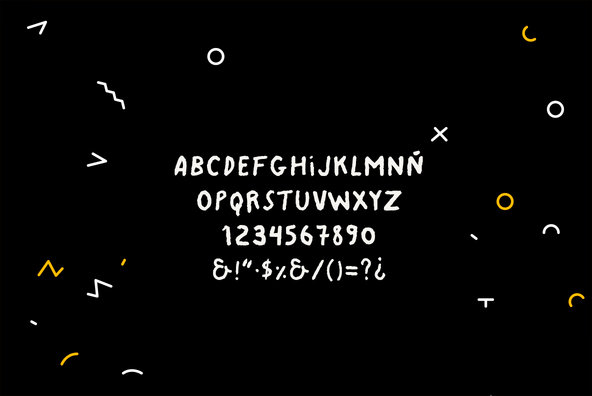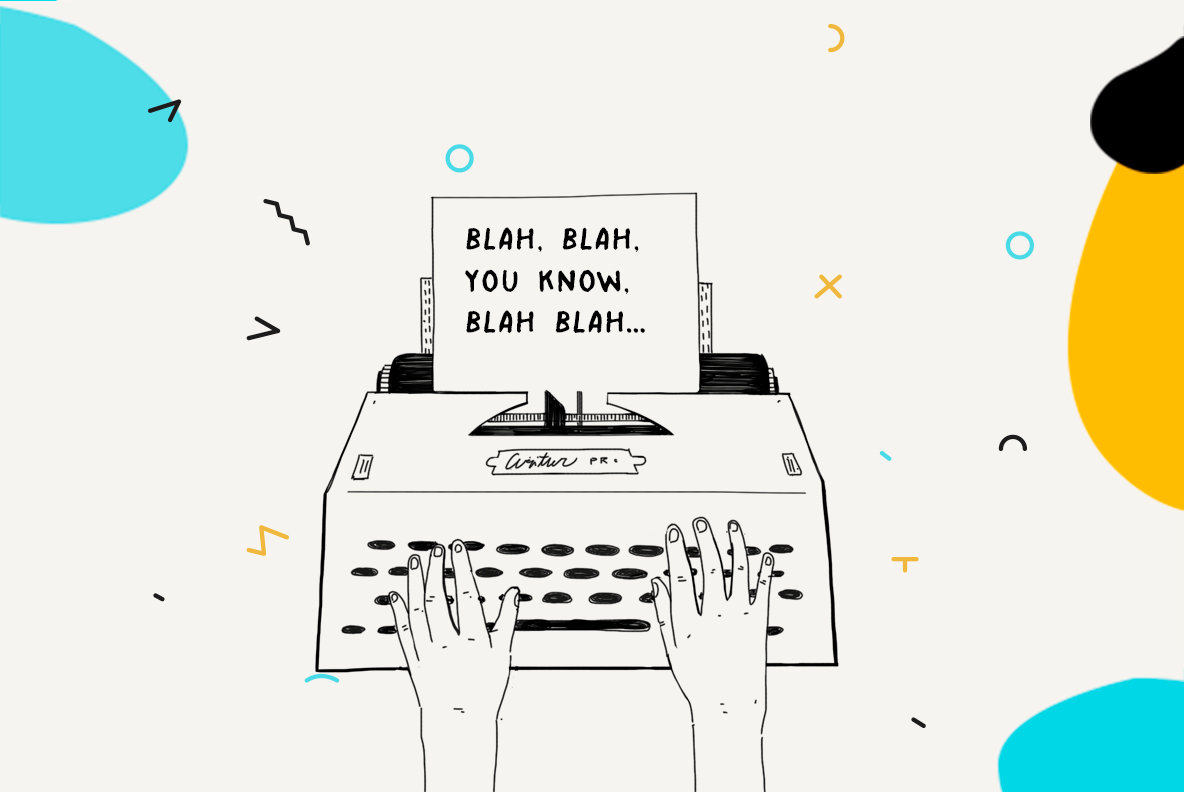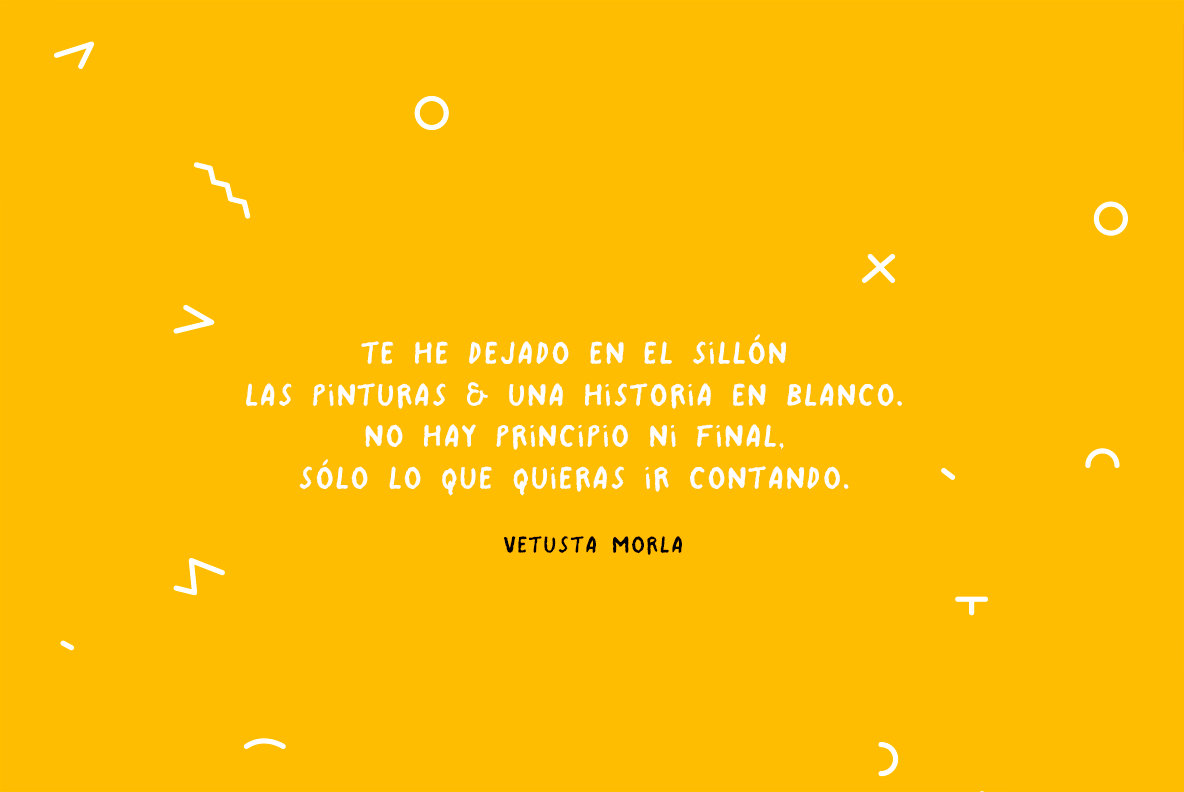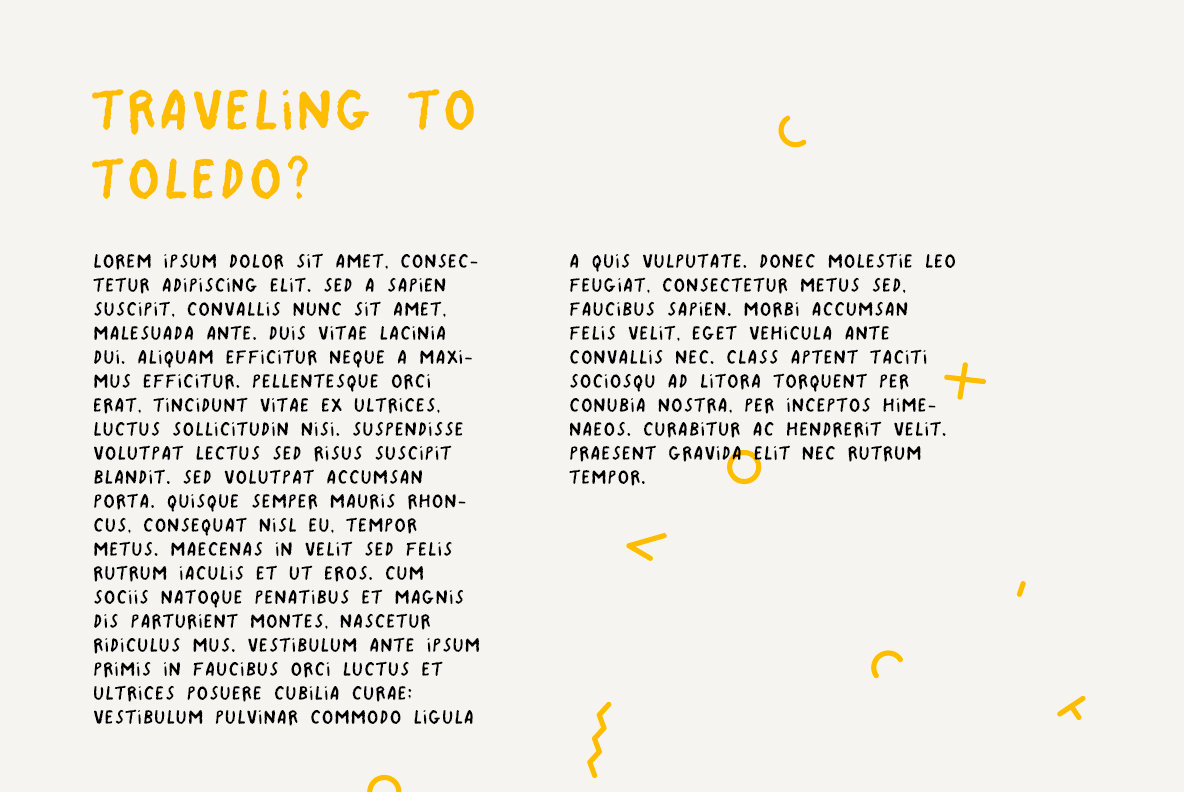
La Toledana is a handwritten uppercase typeface, specially useful for tiny texts & big letterings. Folk attitude, indie mood, perfect for illustrated books or designs.
La Toledana is a handwritten uppercase typeface, specially useful for tiny texts & big letterings. Folk attitude, indie mood, perfect for illustrated books or designs. The font contains a single weight, capitals and small letters support and extensions for latin.